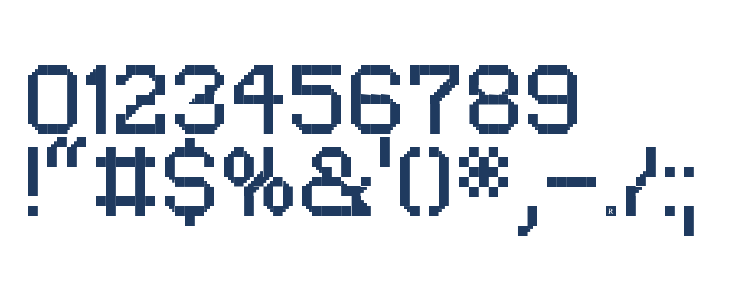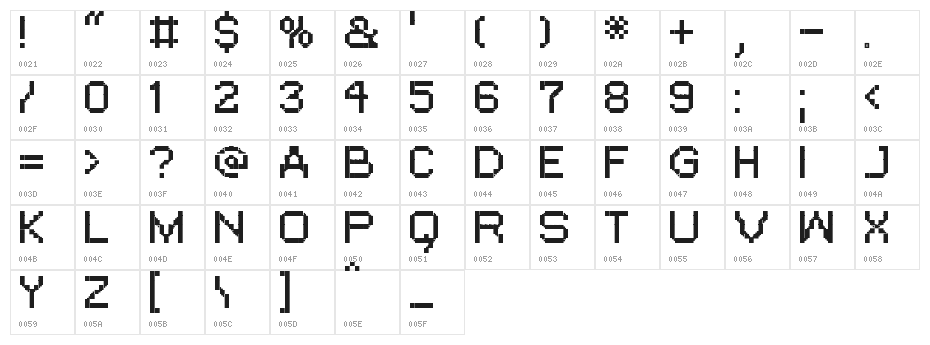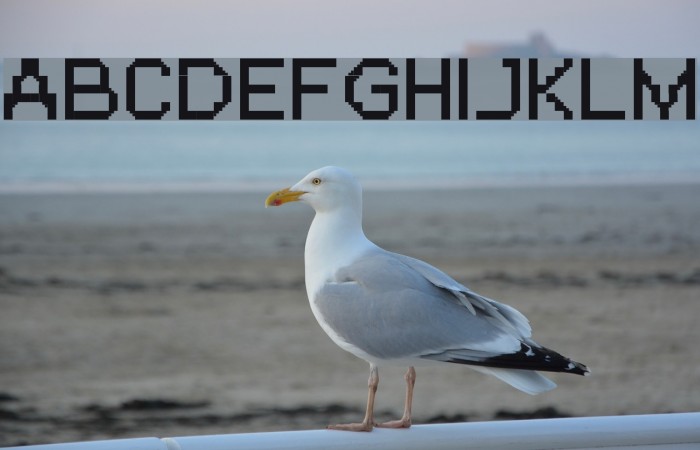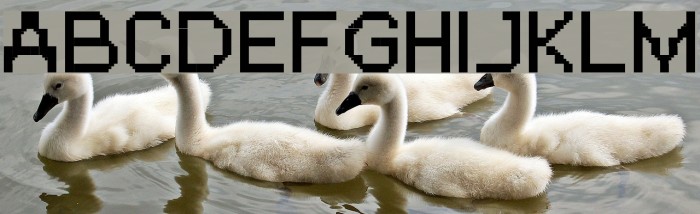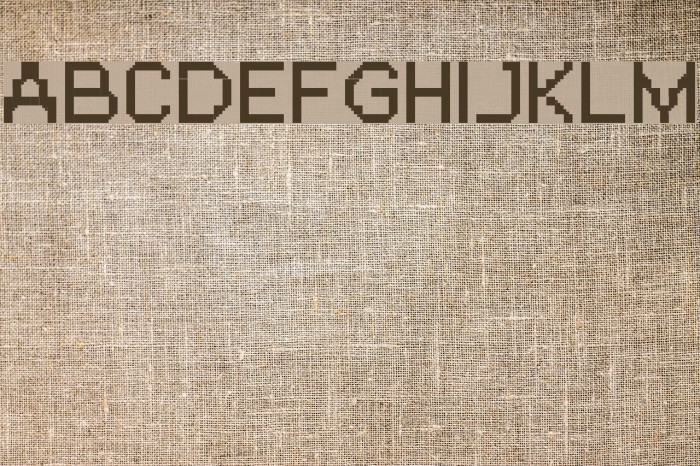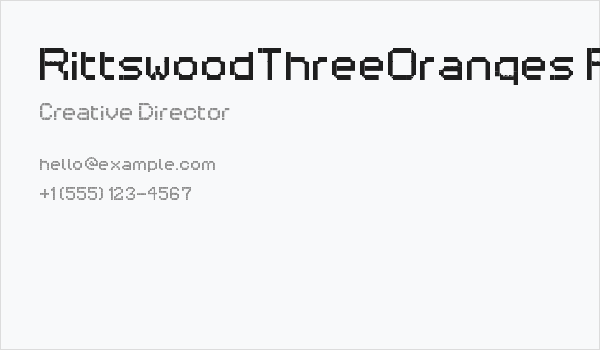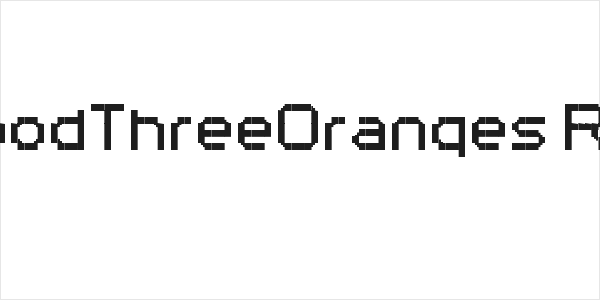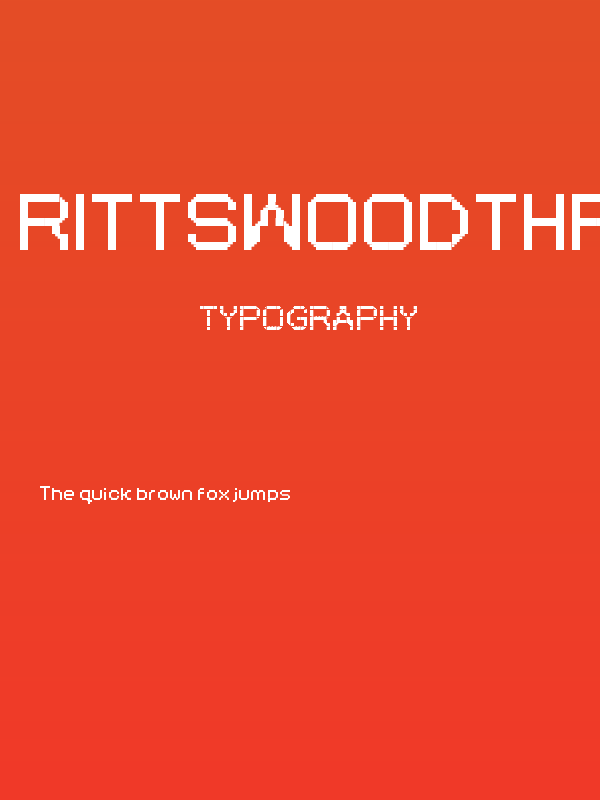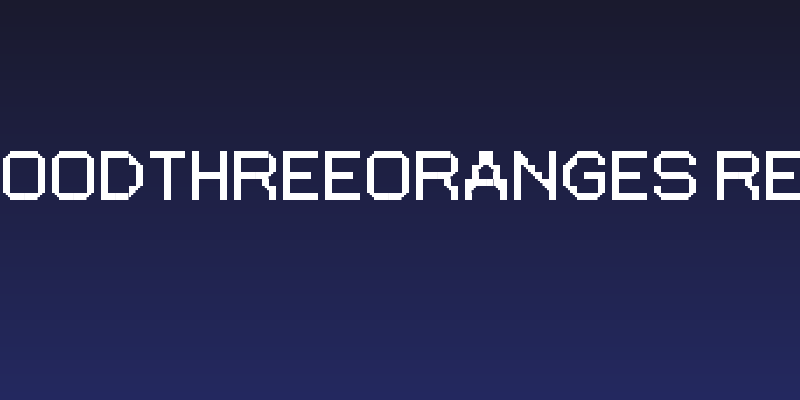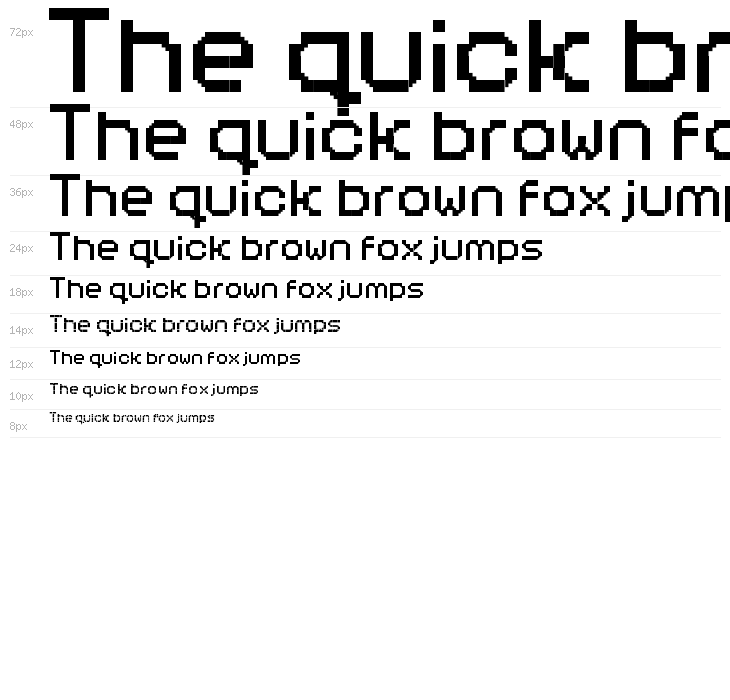
RittswoodThreeOranges Regular Font
RittswoodThreeOranges Regular Description
This font features a distinct pixelated style, reminiscent of early digital displays and retro video games. Each character is composed of small square blocks, creating a grid-like appearance. The uppercase and lowercase letters maintain a consistent height, contributing to a uniform look. The numerals and special characters follow the same pixelated design, ensuring a cohesive visual theme throughout. This font's unique style makes it stand out, offering a nostalgic yet modern twist suitable for various creative projects.
| Overall Style | Retro, Digital |
| Use Case | Headlines, Logos, Digital Art |
| Proposed Projects | Ideal for retro-themed designs, video game graphics, digital art projects, and any creative work seeking a nostalgic digital aesthetic. |